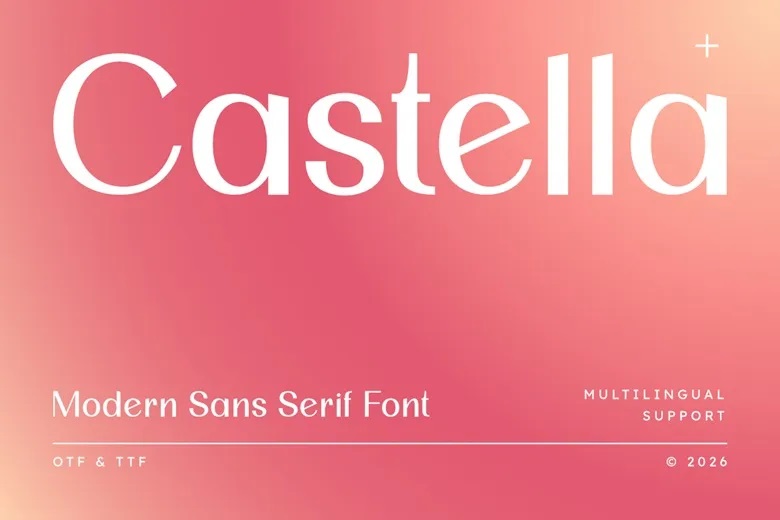
Castella Font
Castella is a modern sans serif font that adds timeless elegance and a professional touch to your creative work. This typeface has balanced letterforms, clean lines, and a minimalist style, making it a great choice for luxury branding. Its sleek design gives each character a polished look that fits modern, simple, and sophisticated projects.
Castella works well for brand identities, corporate materials, and layouts for lifestyle, fashion, or cosmetic brands. It is a strong choice for logos, luxury packaging, websites, and high-end presentations. Castella is made for modern creative projects and helps you create a polished, upscale look that stands out in print and digital formats.
Castella Sans Serif Font